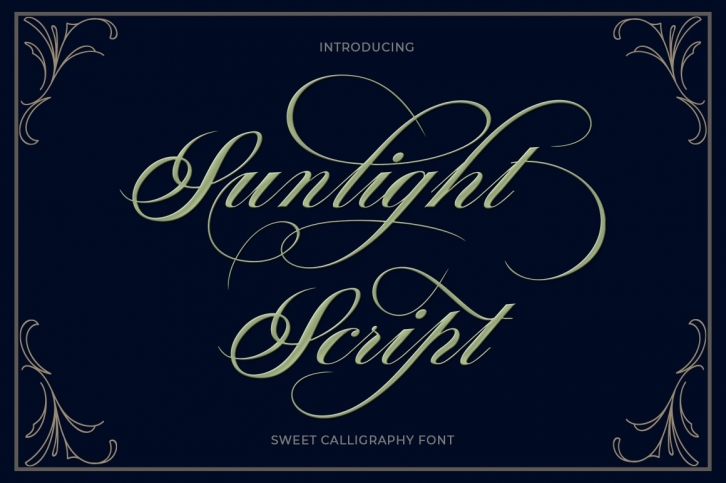
Sunlight Script is a beautiful font that was designed by Typehill. It's a great choice for designers and creatives who need such a font. It was released on August 2, 2018 and the file size is 20.10 MB. Sunlight Script may give a more youthful, expressive and casual look to your project. It is a very beautiful, refined, elegant, and high-quality font.